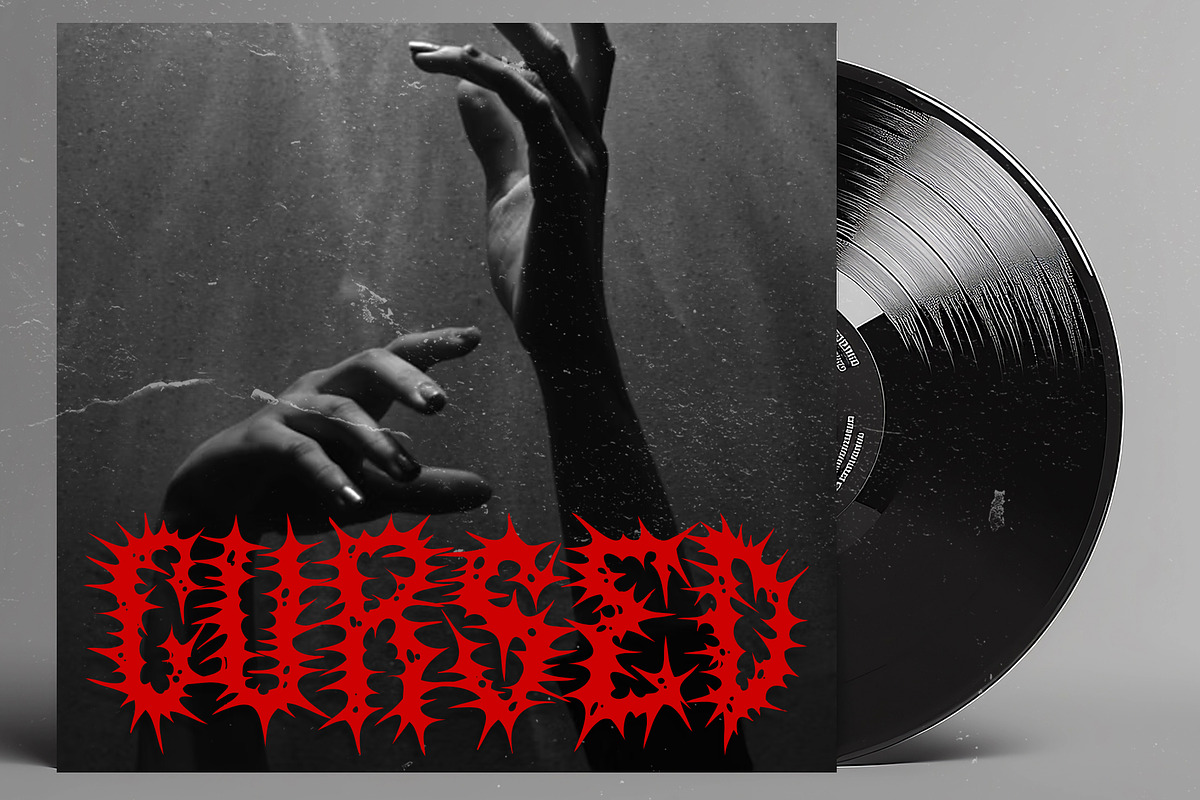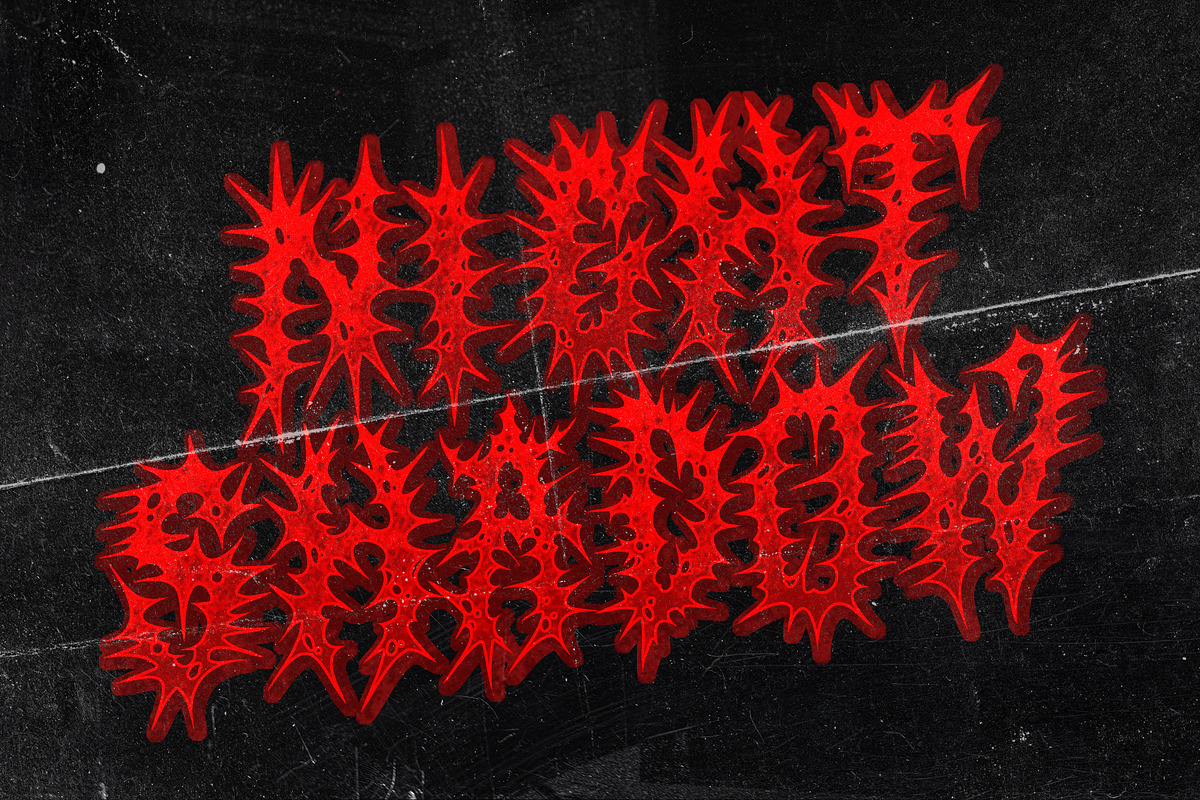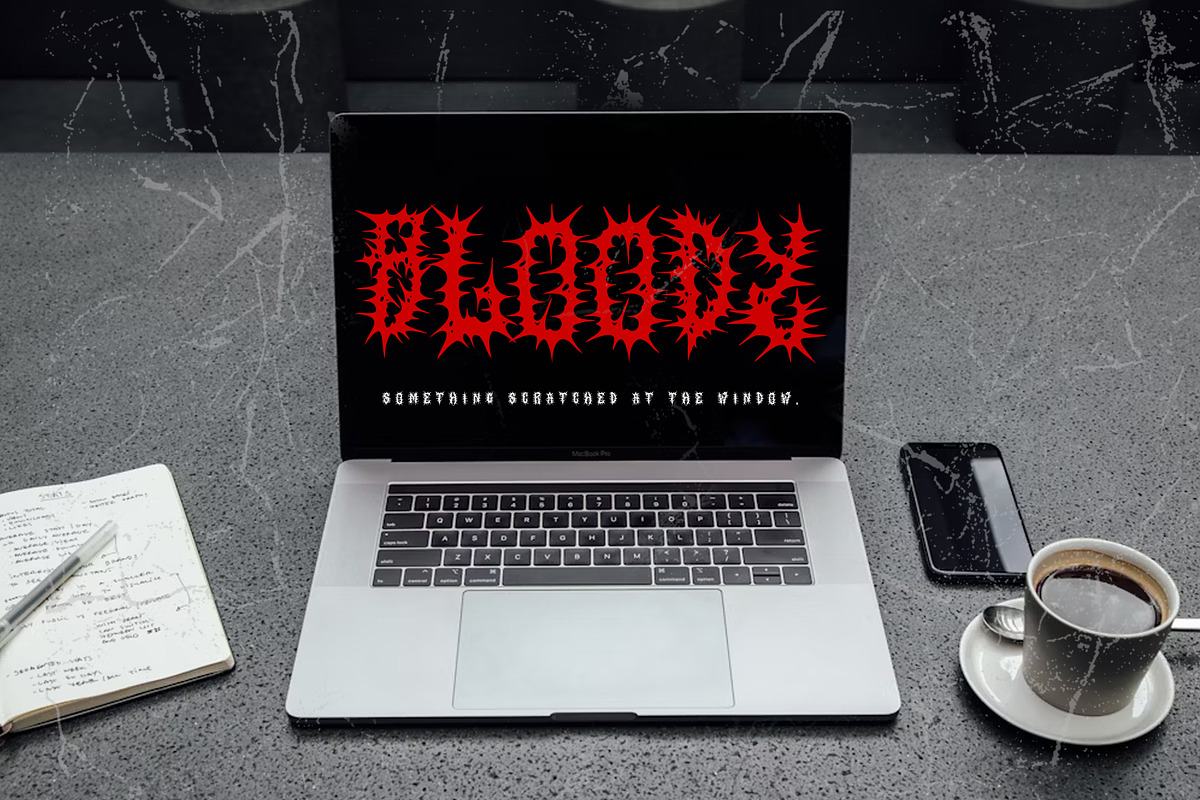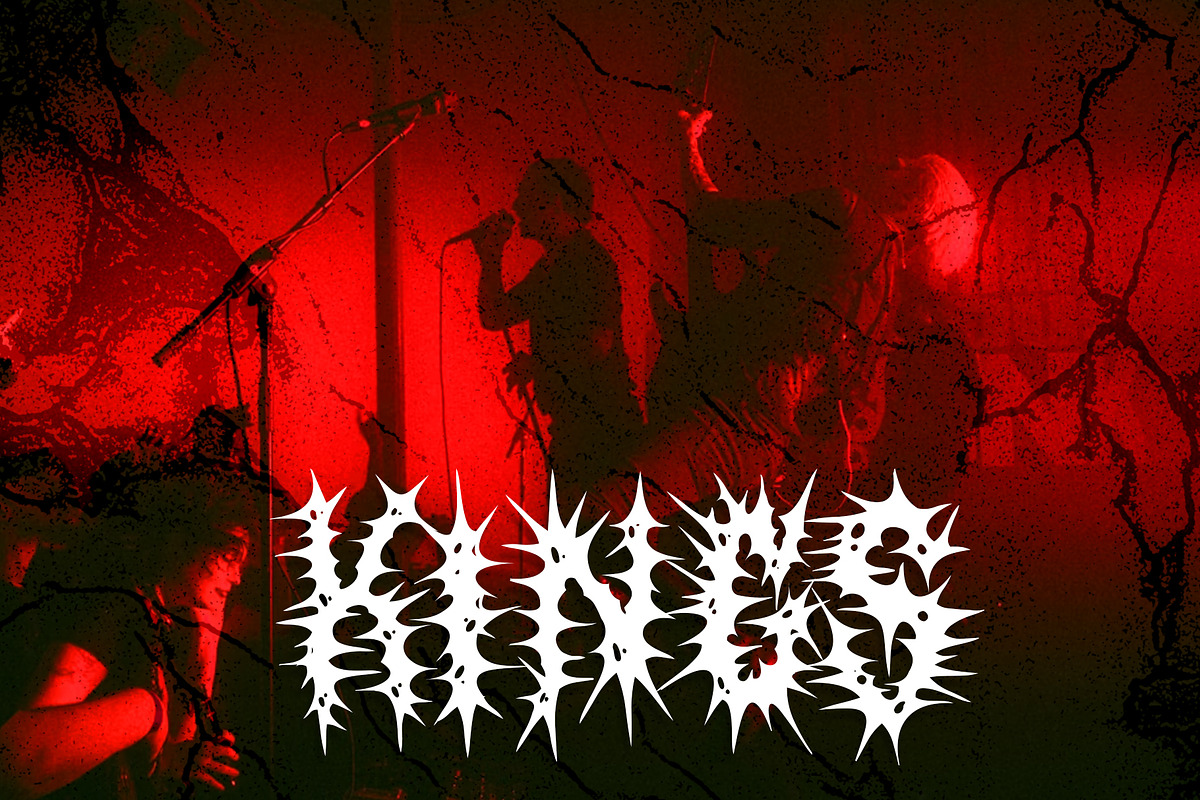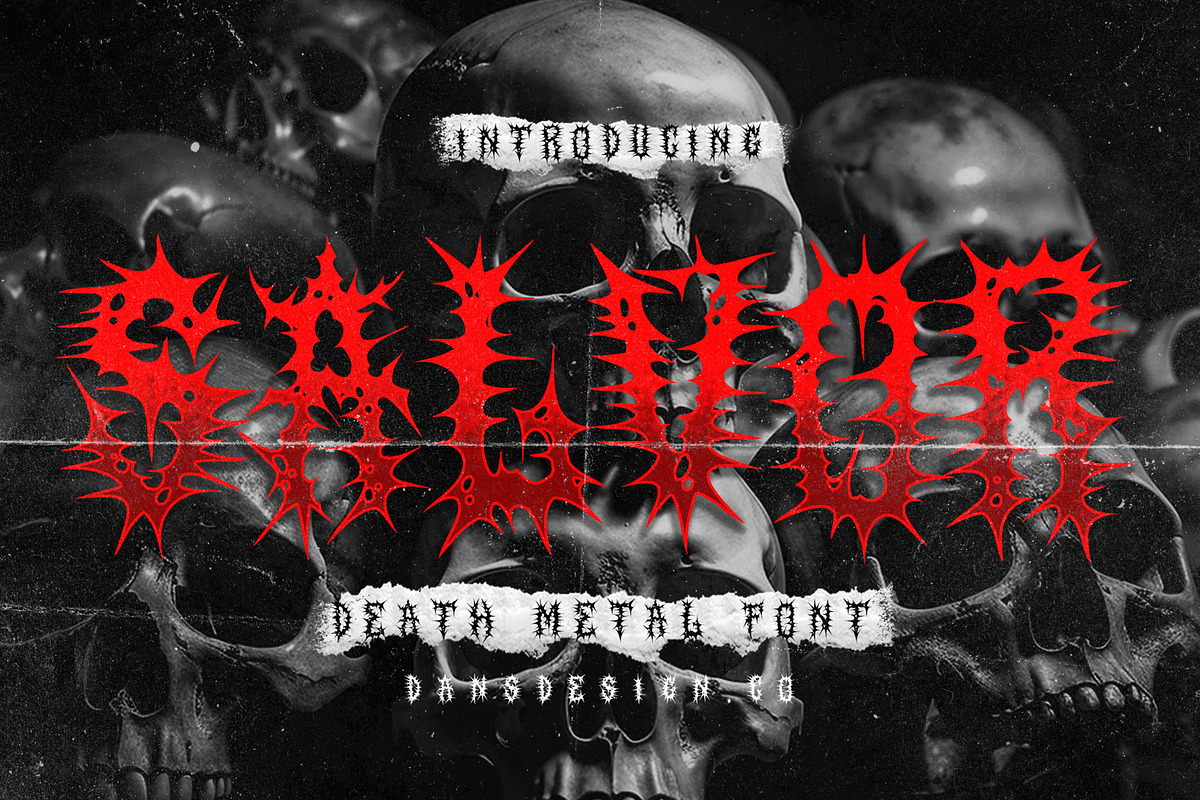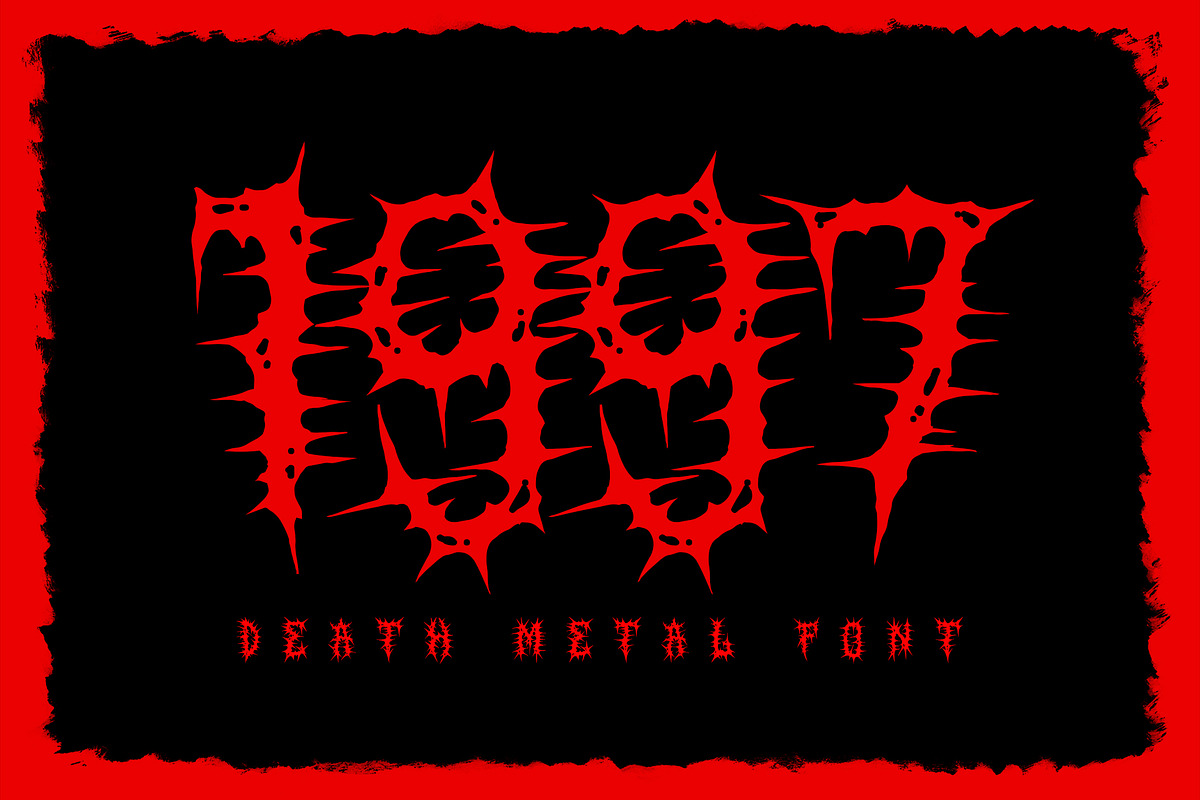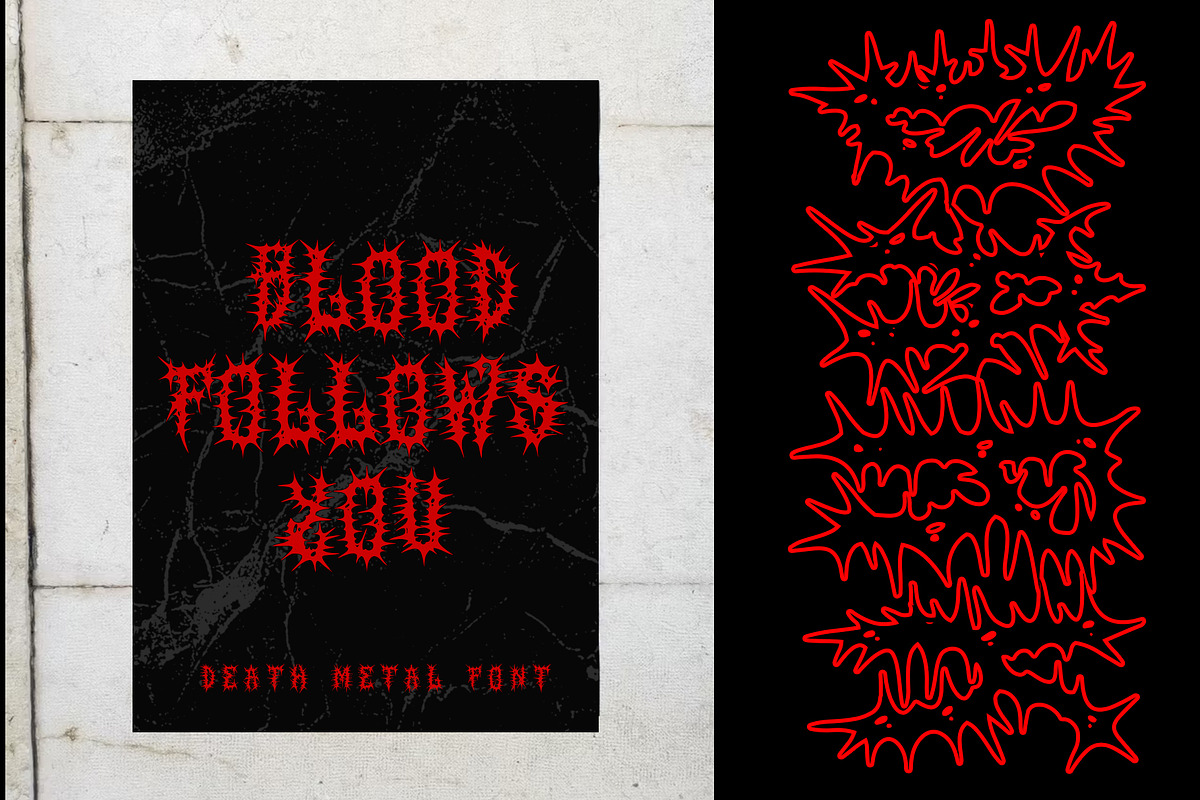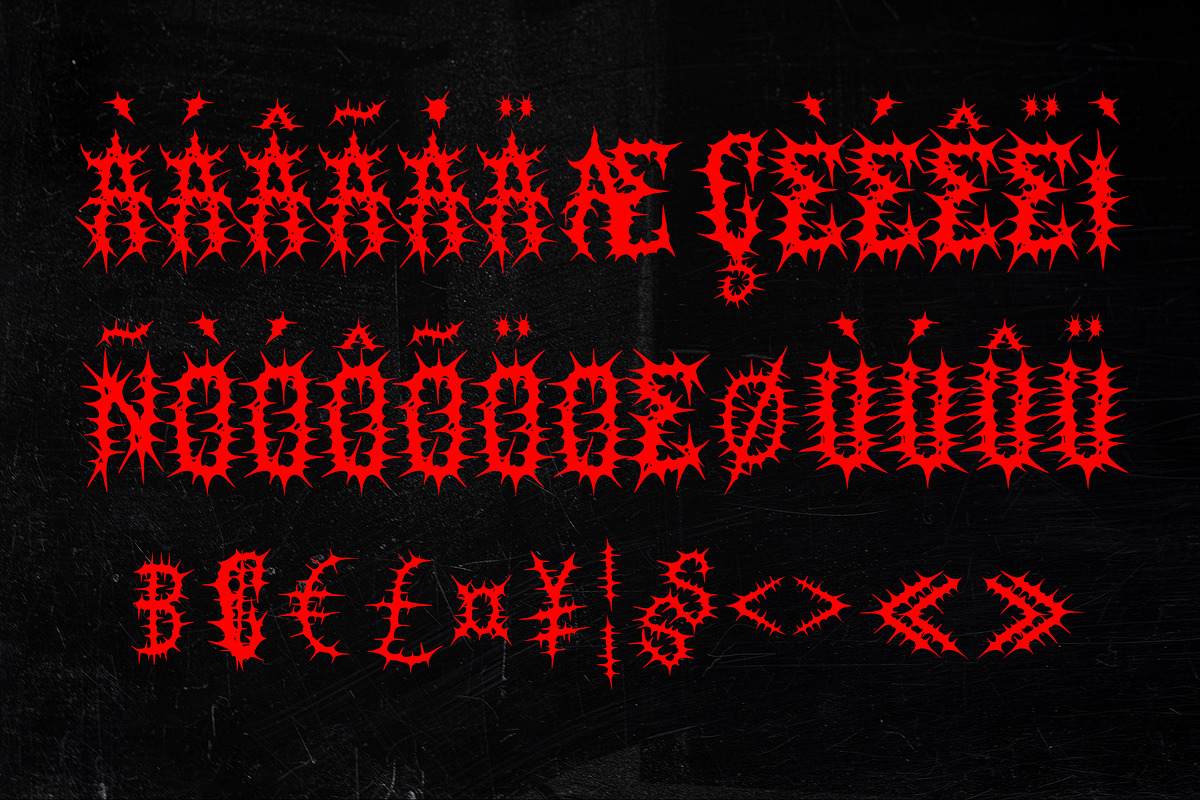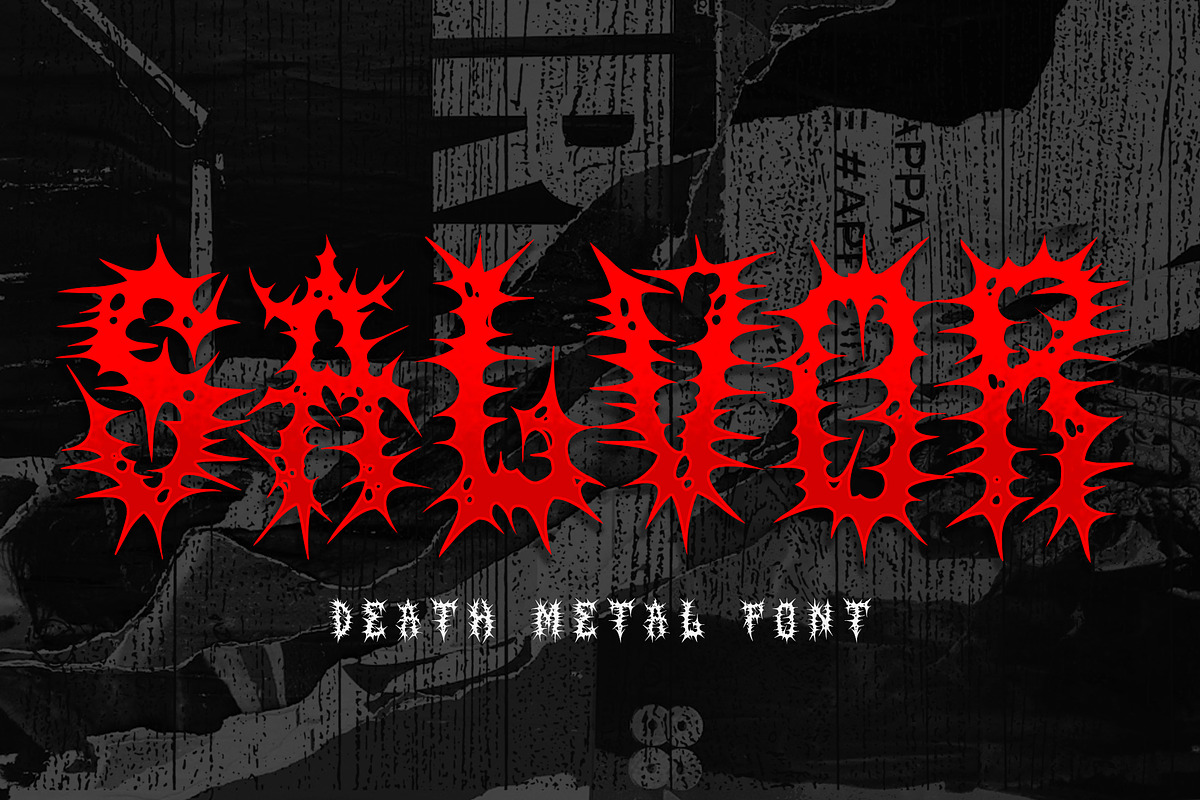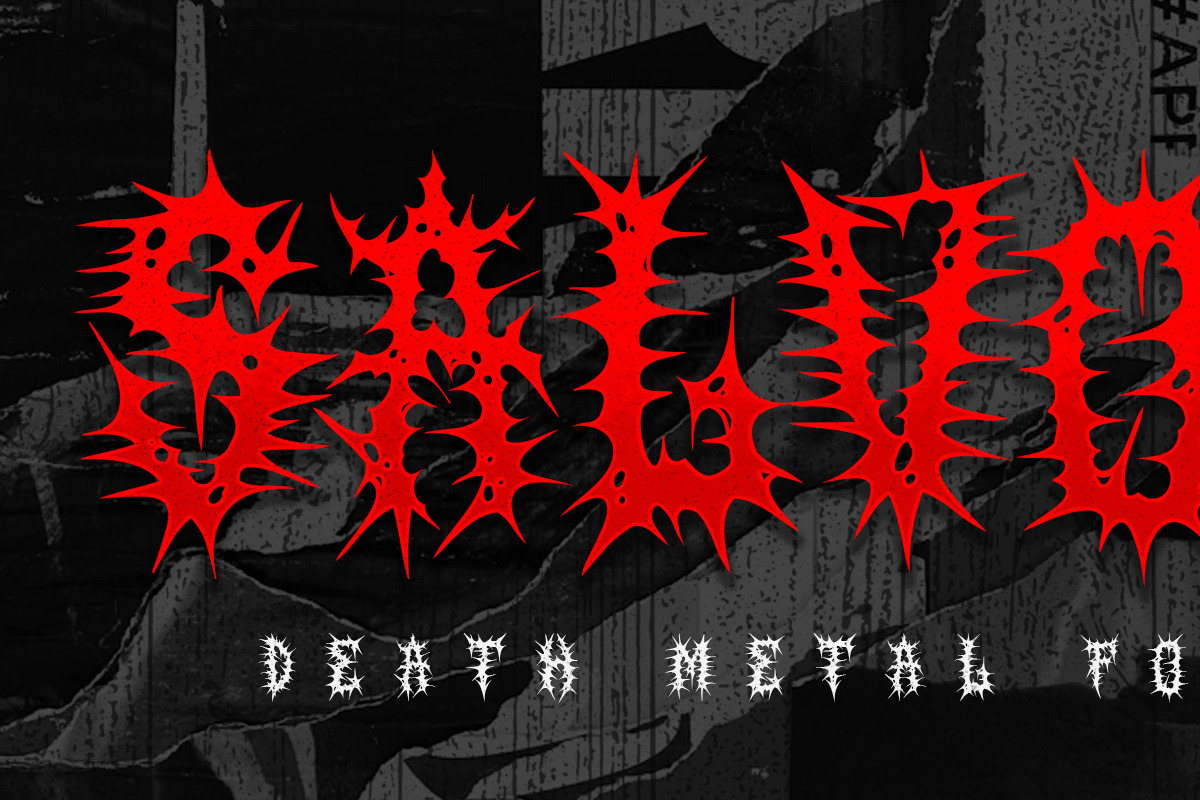
SALVOR Metal Horror Blackletter Font
SALVOR – Metal Horror Blackletter Font is a bold and intricately crafted display typeface that fuses gothic blackletter tradition with intense horror and metal aesthetics. With jagged edges, fractured strokes, and dramatic ornamentation, SALVOR commands attention in designs that call for a dark, aggressive, and powerful look. This font is ideal for music branding, album covers, concert posters, logo design, tattoo styling, and retro-urban visuals. It includes accented characters, numerals, punctuation, and PUA encoding, making it versatile across print and digital platforms. Infuse your projects with the fierce edge of metal darkness using SALVOR.